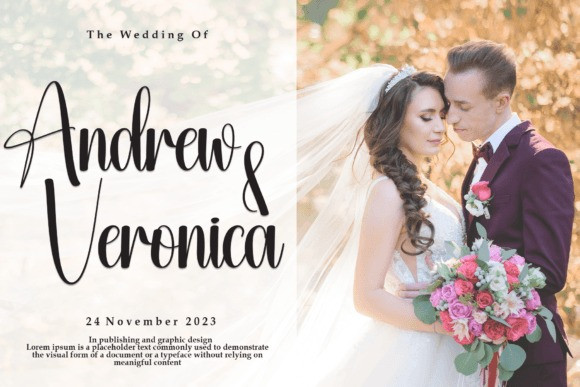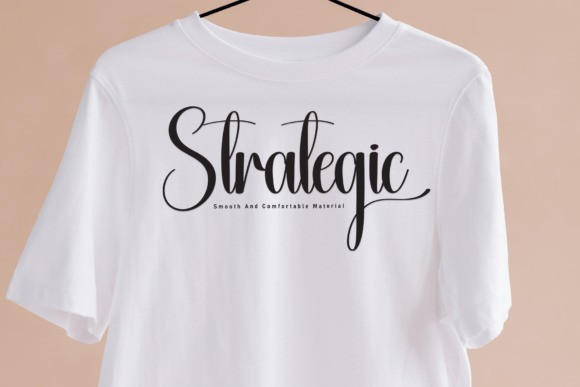
Hanger Script Font
Hanger Script Font is an enchanting handwritten font. This versatile script font has a wide spectrum of applications ranging from greeting cards to headlines and is guaranteed to add a romantic feel to your next project.